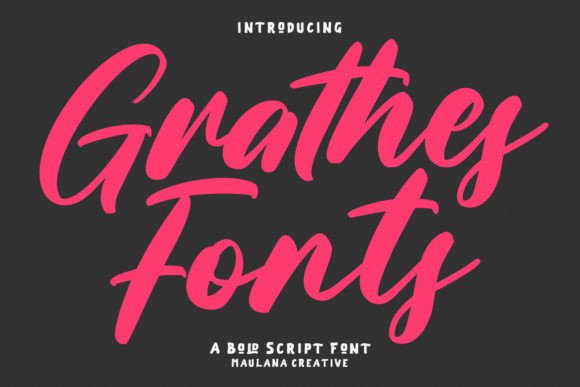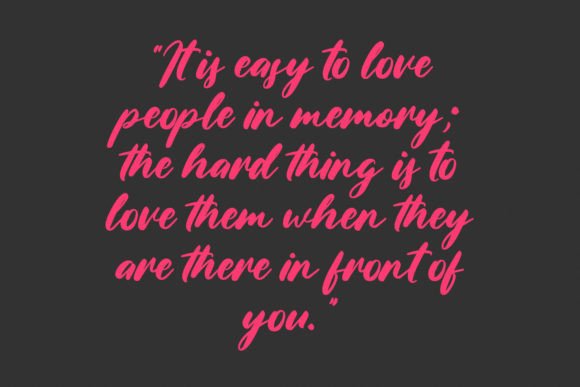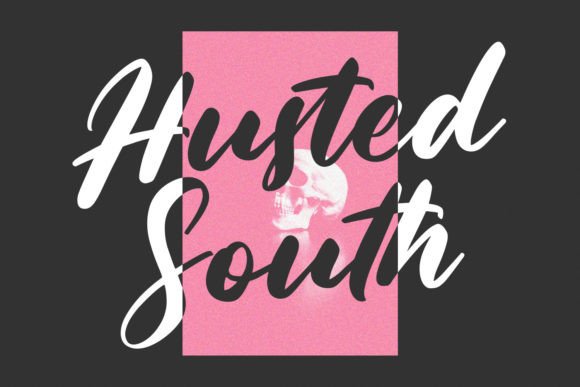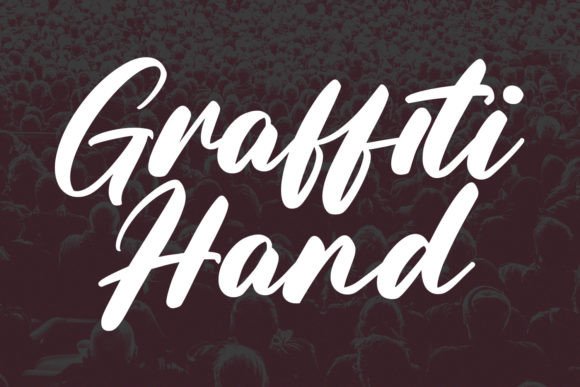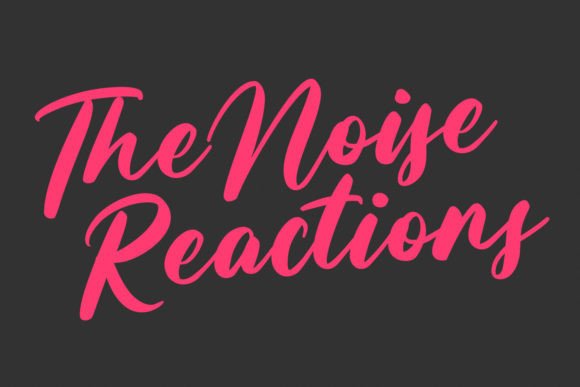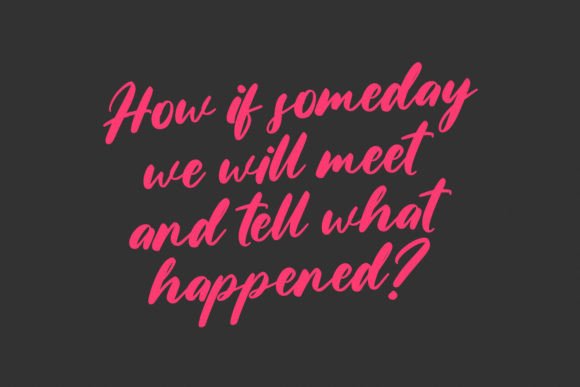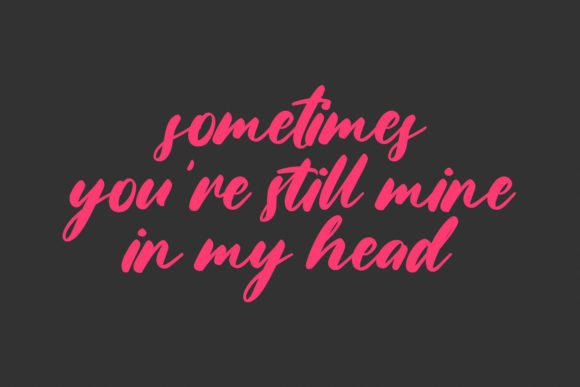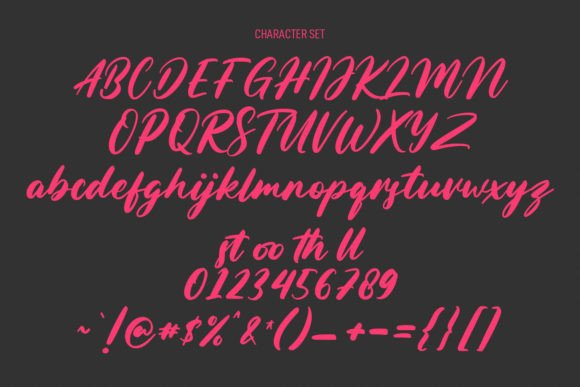
Grathes Font
Grathes Script Font – Bold and Versatile Typeface
The Grathes Script Font is a bold and casual typeface created to add charm and versatility to your projects. With smooth handwritten strokes and a confident flow, it strikes the perfect balance between modern style and personal touch. Whether you’re designing wedding invitations, social media graphics, or branding, this font ensures your work makes a statement.
A Script Font with Bold Personality
The Grathes Script Font features bold handwritten curves that create an approachable yet stylish appearance. Its casual flow adds energy, while its clean readability ensures practical use. Because of this, it adapts beautifully to both professional and personal creative needs.
Perfect for Weddings and Invitations
One of the best uses of the Grathes Script Font is in wedding stationery. Invitations, thank-you cards, and event menus look elegant and memorable with its flowing strokes. At the same time, it works perfectly for posters, quotes, and branding materials, giving them a strong yet charming handwritten edge.
The Grathes Script Font adapts well across different design contexts. From stationery art and product packaging to social media posts and logos, it adds a bold handwritten look that works in both print and digital formats. As a result, it remains a valuable asset for designers who need flexibility.
Why Designers Love Grathes Font
Designers appreciate the Grathes Script Font because it combines boldness with usability. Its flowing strokes add elegance, while its readability ensures clarity. This combination makes it an ideal typeface for projects that require both personality and professionalism.
In summary, the Grathes ScriptFont is a bold, casual, and versatile typeface. With its smooth handwritten strokes, quick installation, and wide usability, it is perfect for invitations, posters, branding, and social media. Don’t miss the chance to download Grathes ScriptFont and elevate your designs with its stylish charm.